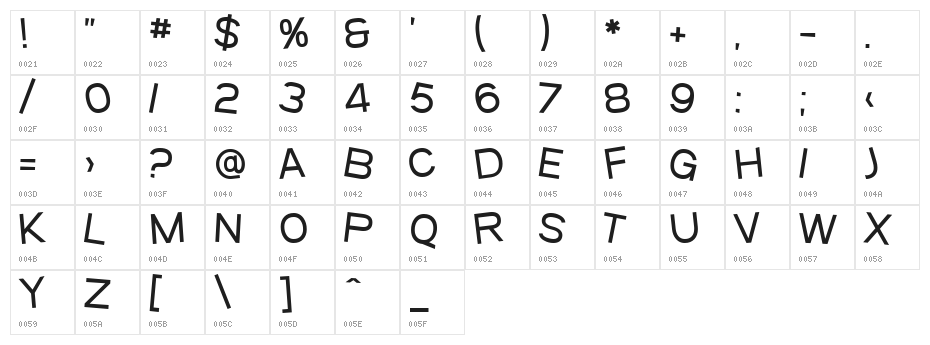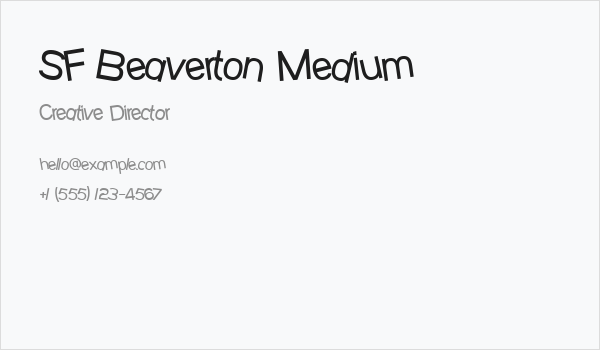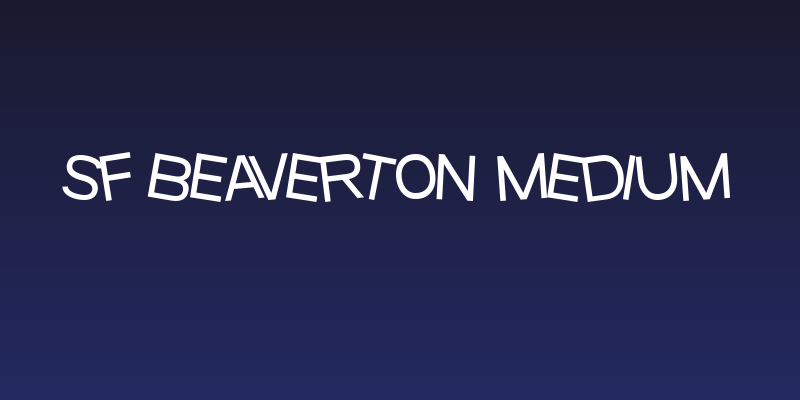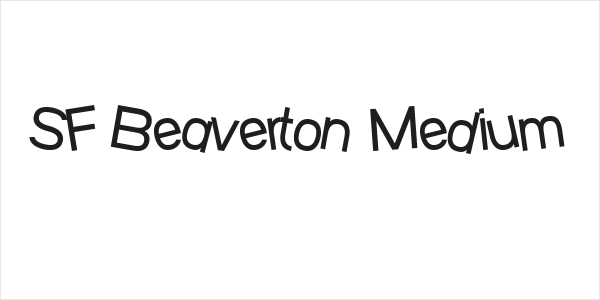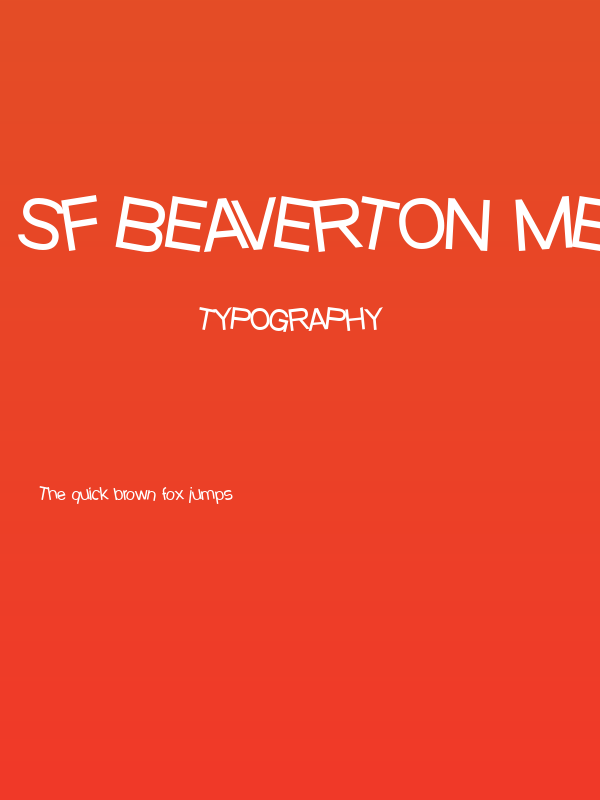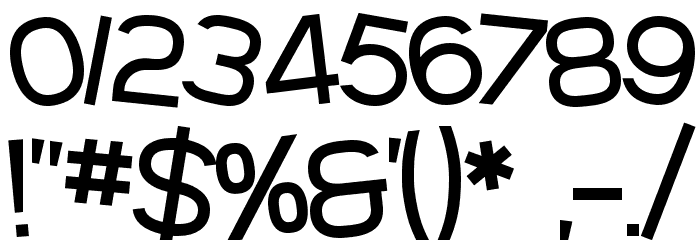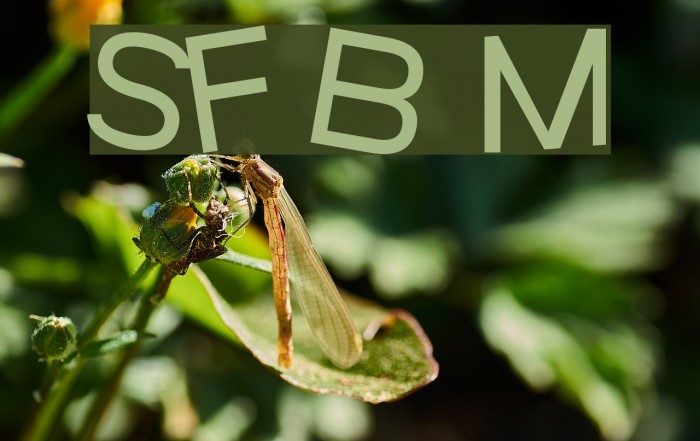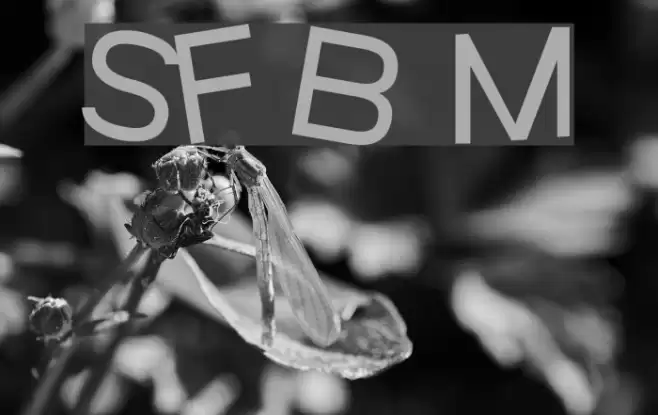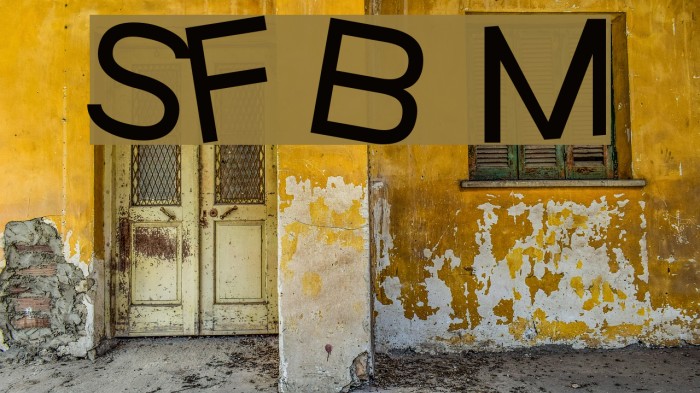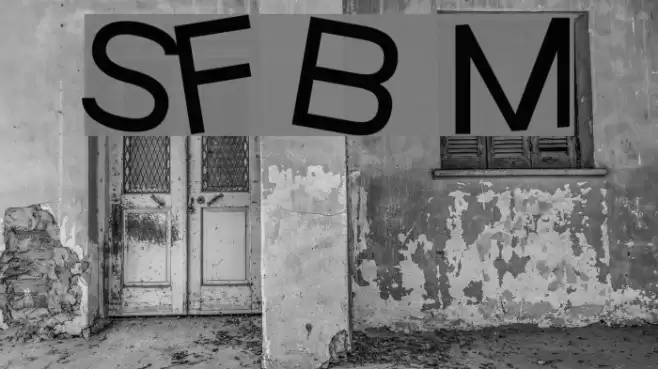
SF Beaverton Medium Font
SF Beaverton Medium Description
This font features a playful and dynamic style with a slightly slanted orientation, giving it a sense of movement and energy. The characters are bold and rounded, with a consistent stroke width that provides a modern and clean appearance. The uppercase letters are tall and slightly condensed, while the lowercase letters maintain a friendly and approachable look. The numerals are clear and easy to read, matching the overall style of the alphabet. Special characters are well-integrated, maintaining the font's cohesive design. This font is versatile, suitable for both digital and print media, and can be used to add a lively touch to any project.
| Proposed Projects | Ideal for children's books, playful branding, posters, and digital media. |